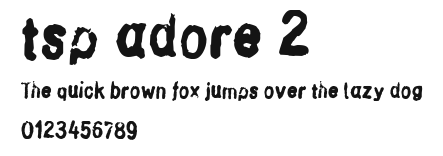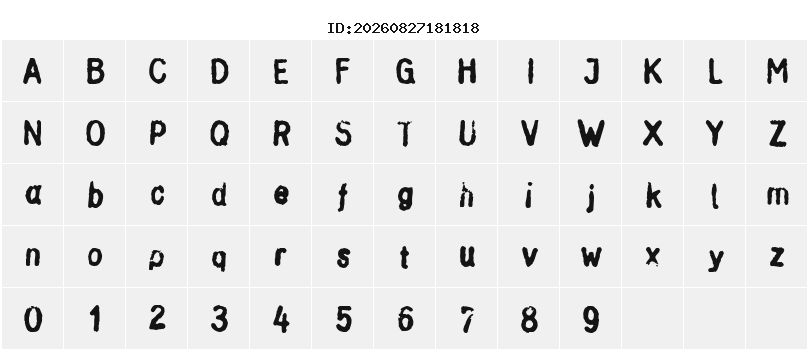
• Font Name: tsp adore 2
• Full Font Name: tsp adore 2
About tsp adore 2.ttf
tsp adore 2.ttf is a modern, elegant sans-serif font designed for ultimate readability and visual harmony. Perfect for branding, headlines, web design, and print materials.